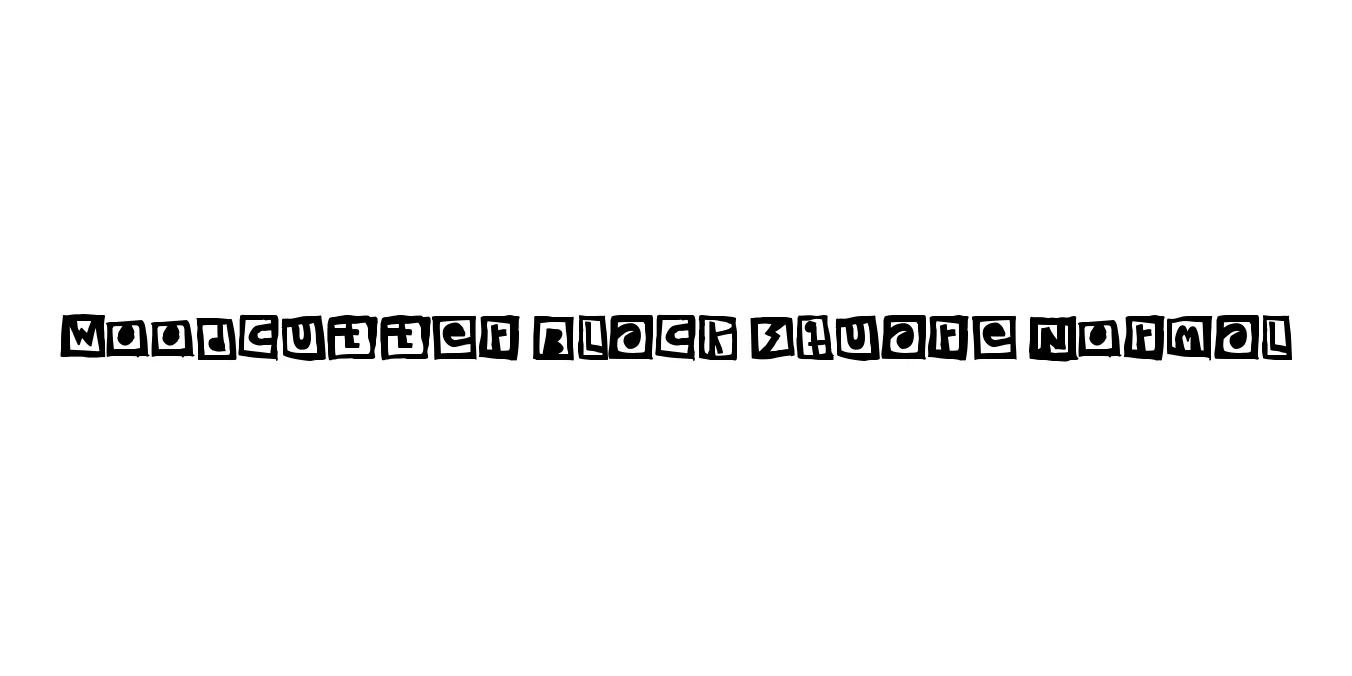
Woodcutter Black Square Normal
Designed by Woodcutter (Rodrigo Araya Salas)
| Font Name | Woodcutter Black Square |
| Category | Display / Block |
| Designer | Woodcutter (Rodrigo Araya Salas) |
Woodcutter Black Square Normal is a distinctive display typeface created by the Spanish designer Woodcutter, also known as Rodrigo Araya Salas. Known for its heavy, blocky architecture, this font embodies a rugged, industrial aesthetic that prioritizes visual impact. Each character is constructed within a strictly defined square grid, featuring thick strokes and sharp angles that command attention on any canvas. It is part of Woodcutter's extensive portfolio of experimental and thematic typography, often characterized by a raw, digital-industrial feel.
This font is particularly effective for projects requiring a bold, authoritative voice. Its geometric rigidity makes it a favorite for urban streetwear branding, brutalist design layouts, and high-impact headlines. While its legibility is strong at large sizes, its sheer density is best utilized for short bursts of text rather than long body copy. It captures a unique balance between vintage block printing and modern digital geometry, making it a versatile tool for graphic designers looking to add a heavy, structured element to their visual identity work.
Woodcutter Black Square Normal Best Uses
Ideal for bold, eye-catching event announcements and high-contrast visuals.
Perfect for streetwear labels, hoodies, and t-shirt graphic designs.
Great for creating strong, solid, and immovable brand identities.
Excellent for impactful YouTube thumbnails and Instagram headers.